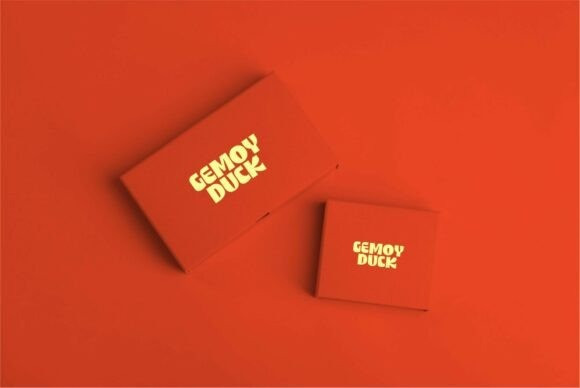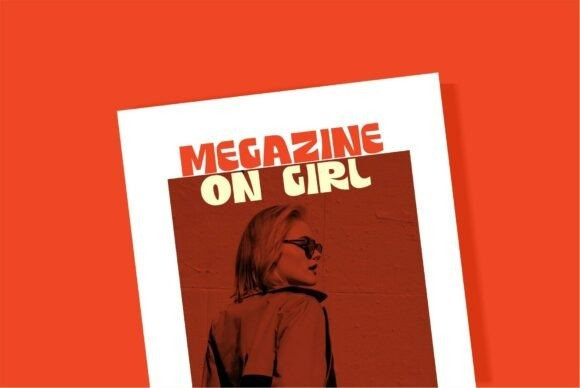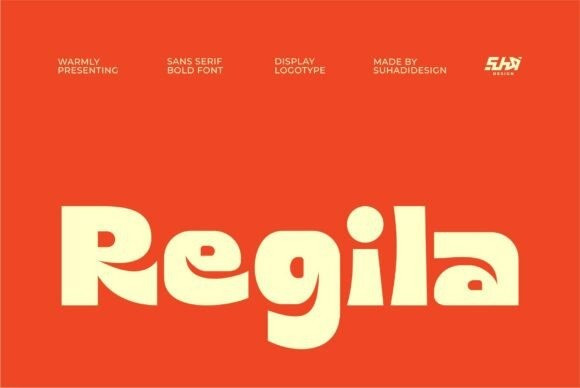
Regila Font
Regila Font a powerhouse display sans that captures a “dynamic-and-distinctive” soul. This font features massive, ultra-bold letterforms uniquely characterized by rhythmic, hand-drawn “waves” and sharp, expressive terminals that bridge the gap between retro 70s groove and modern brutalist design. With its heavy structural weight and authoritative personality, Regila is the premier choice for independent streetwear branding, avant-garde editorial layouts, high-impact poster design, and bold social media headers that demand to be seen.